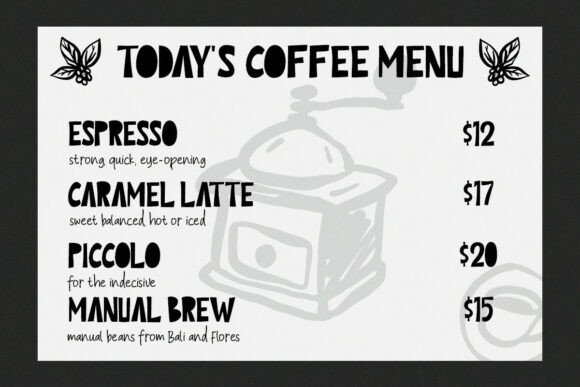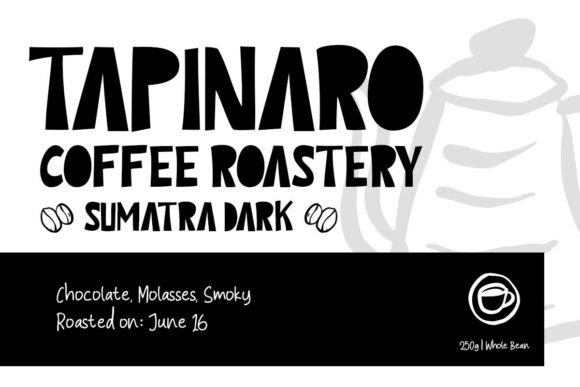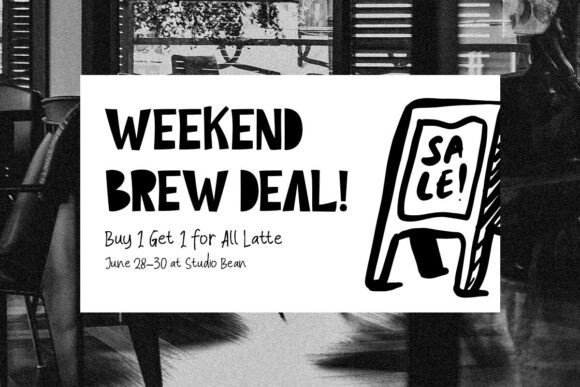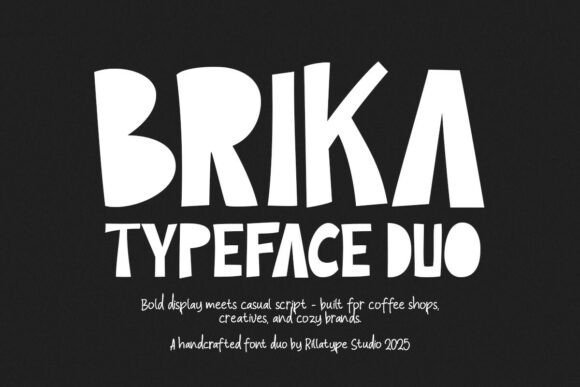
Introduction to Brika Font
Brika is a fun and handmade-style font duo, combining a bold sans serif with a smooth handwritten script.
It’s perfect for creating standout logos, product labels, mugs, signs, and menu templates This bundle also includes 20 bonus coffee-themed illustrations that match the font’s vibe perfectly.
Brika Font offers exceptional quality and versatility, making it a valuable addition to your design toolkit. Whether you’re creating for personal projects or commercial use, Brika Font delivers professional results.